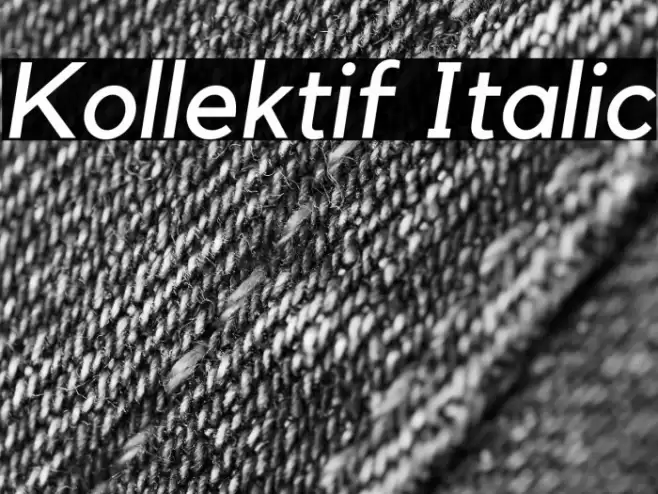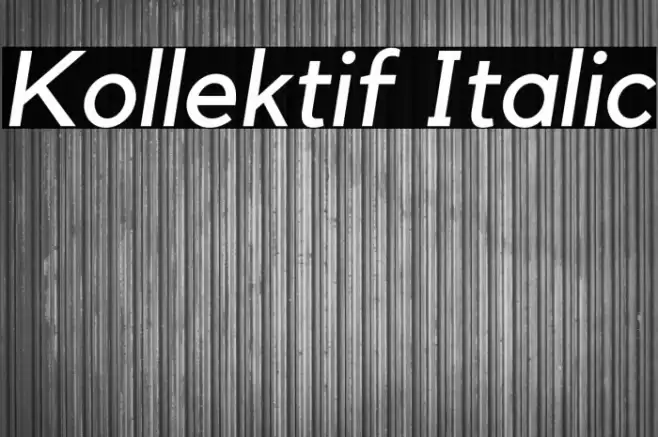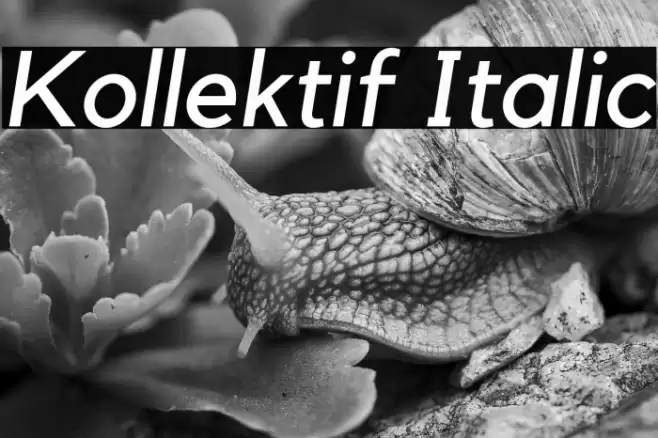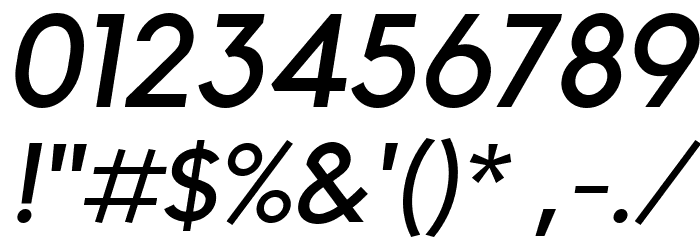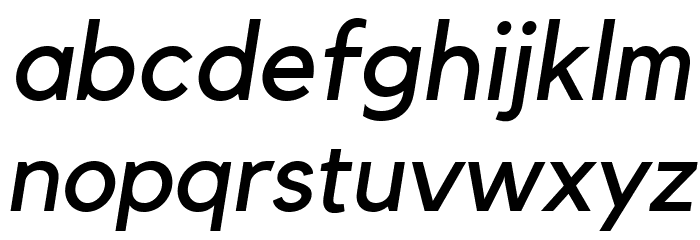
Kollektif Italic Font
Kollektif Italic Description
This font features a clean and modern sans-serif style with a slight italic slant, giving it a dynamic and contemporary appearance. The characters are well-proportioned, with a consistent stroke width that maintains readability across various sizes. The design is minimalistic, making it versatile for a wide range of applications. The uppercase letters are bold and assertive, while the lowercase letters maintain a friendly and approachable feel. The numerals are clear and easy to distinguish, and the special characters are designed to complement the overall aesthetic without overpowering it.
A modern, italic sans-serif font with clean lines and a versatile style from Uncategorized fonts.
- Proposed Projects: Ideal for branding, editorial design, websites, and advertising materials.